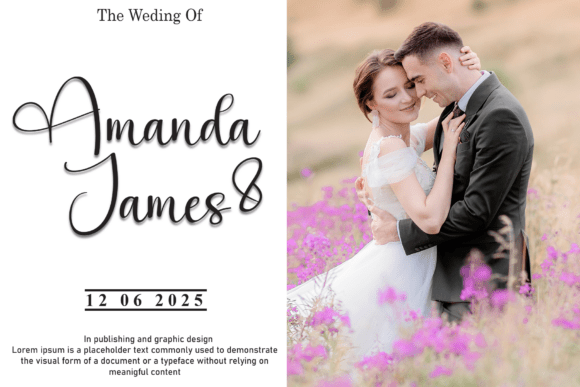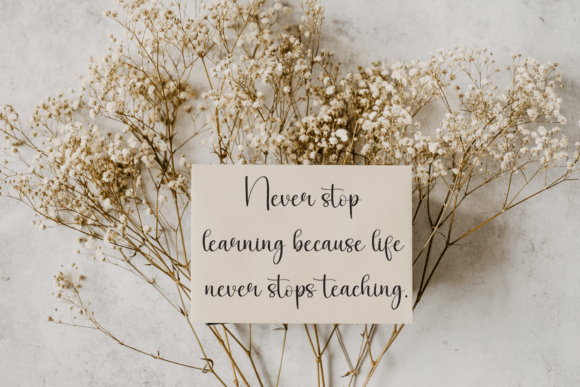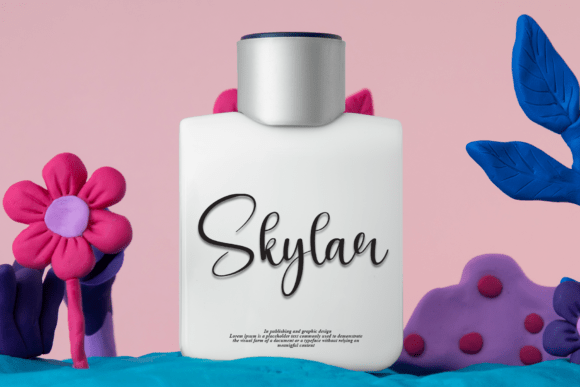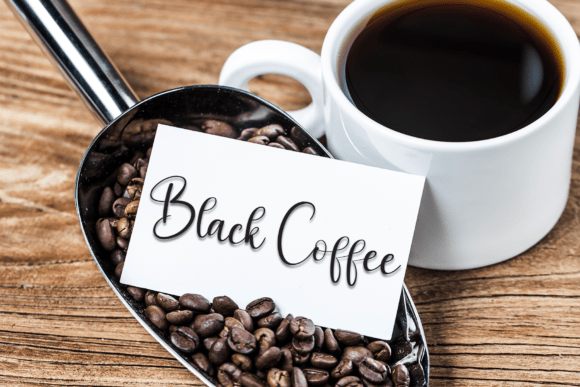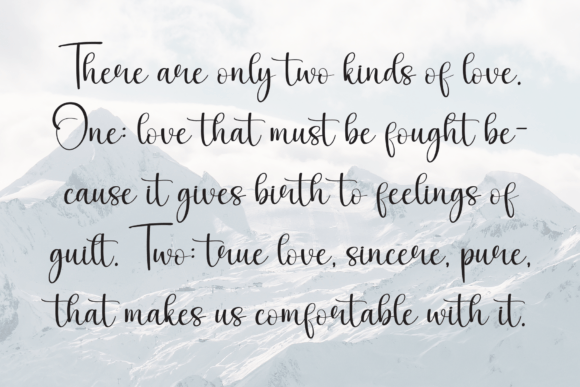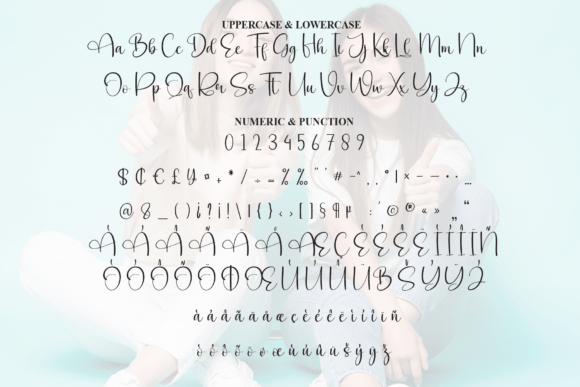
Adding a Personal Touch: The Allure of Bestie Font
Have you ever sat at your desk, pen in hand, trying to craft the perfect invitation or letter? The blank page stares back, and your mind goes blank. But what if you could give your words a personal touch, infusing them with elegance and warmth? This is where the Bestie Font comes in – a charming handwritten script that captures the essence of sophistication and freshness.
As a designer, you know that the right font can make all the difference in a project. Bestie Font is more than just a typeface – it’s a way to add a delicate, personal touch to your designs. Whether you’re creating invitations, branding, or stationery, this stylish font brings beauty and creativity to any project. With its flowing curves and gentle strokes, Bestie Font is the perfect addition to any designer’s toolkit.
Key Features of Bestie Font
- Unique Characteristics: The font features a unique blend of modern and playful elements, with distinctive letterforms and flourishes that add a touch of whimsy to text.
- Kerning and Ligatures: The font includes carefully crafted kerning and ligature pairs, ensuring smooth and elegant text rendering, even in complex layouts.
Designer Review: Bestie Font
Overall, I’m quite impressed with the Bestie Font. ✨ Its playful and friendly feel makes it perfect for social media, blogs, and other casual projects where you want to convey a sense of approachability and warmth. The font’s rounded edges and smooth lines create a visually appealing effect that’s hard to resist.
- Flexibility: Bestie Font is suitable for a wide range of projects, from social media graphics to print materials.
- Readability: The font’s clear and easy-to-read design makes it perfect for long blocks of text.
- Customization: Bestie Font comes with a variety of weights and styles, allowing you to customize it to fit your project’s needs.
That being said, there are a few limitations:
- Professional look: While Bestie Font is perfect for casual projects, it may not be suitable for more formal or professional projects where a more serious font is needed.
- Limited versatility: While the font is flexible, it’s still quite playful and may not be the best choice for projects that require a more serious or sophisticated look.
- Size limitations: At very small font sizes, the font can become blurry or difficult to read.
Overall, I’d give Bestie Font 4 out of 5 stars. It’s a solid choice for casual projects, but may not be the best fit for more formal or professional work.
The Bestie Font is ideal for use in social media graphics, blog posts, and other online content where a playful and friendly tone is desired. It’s also great for use in invitations, party decorations, and other event materials where a fun and whimsical touch is needed.